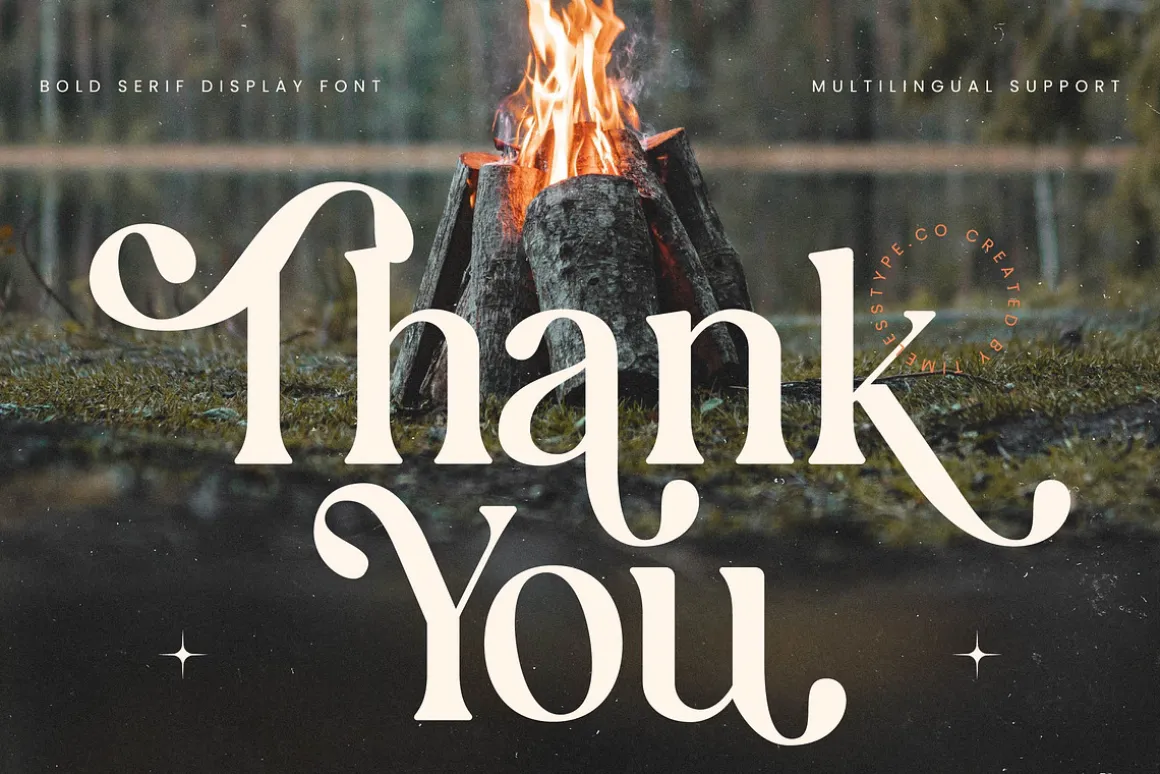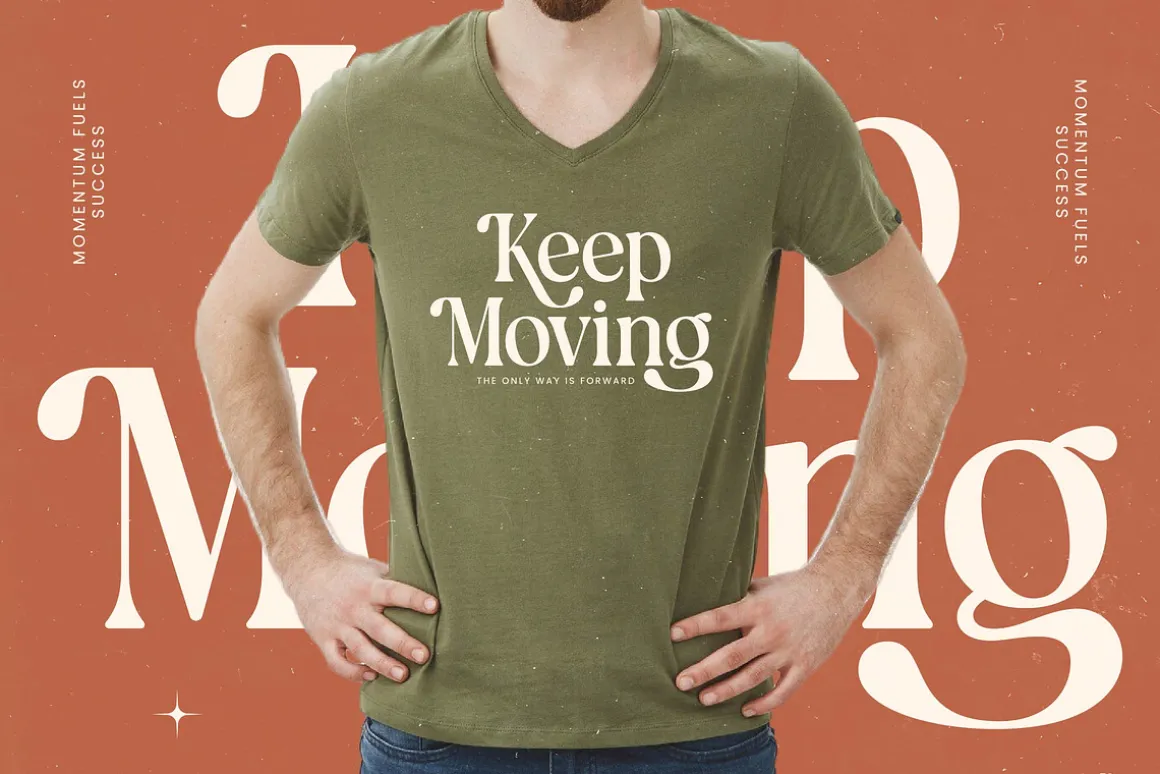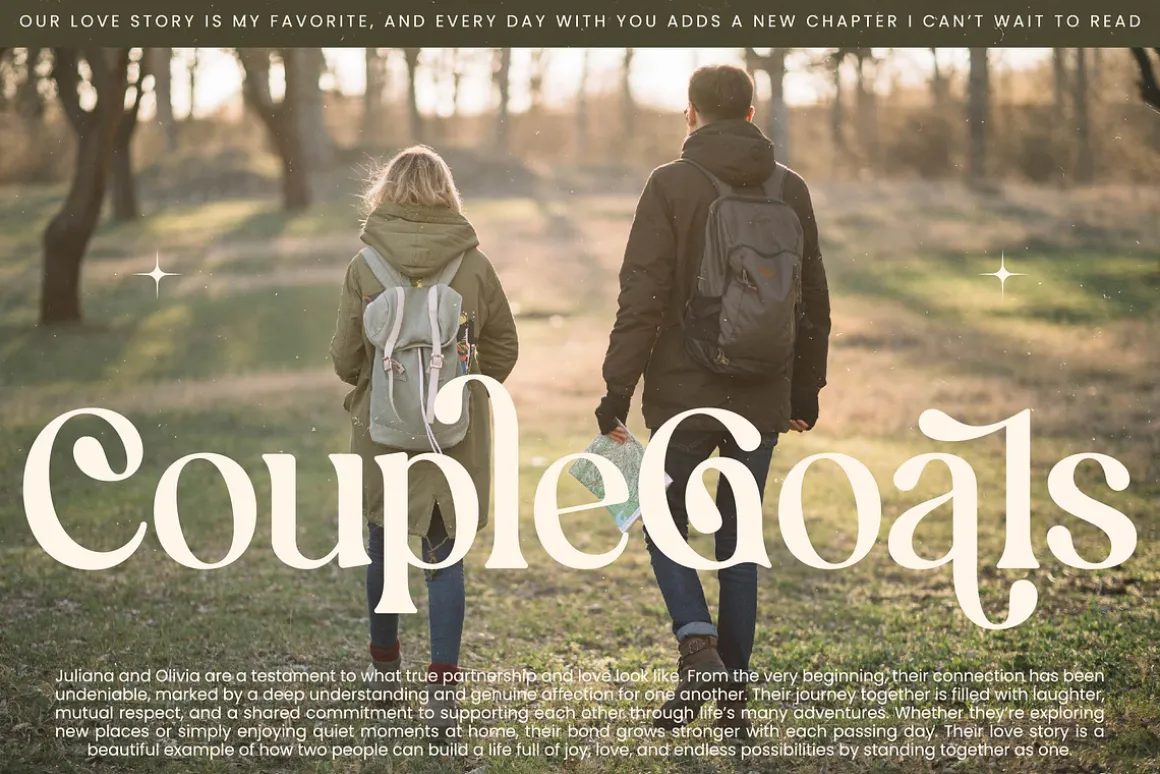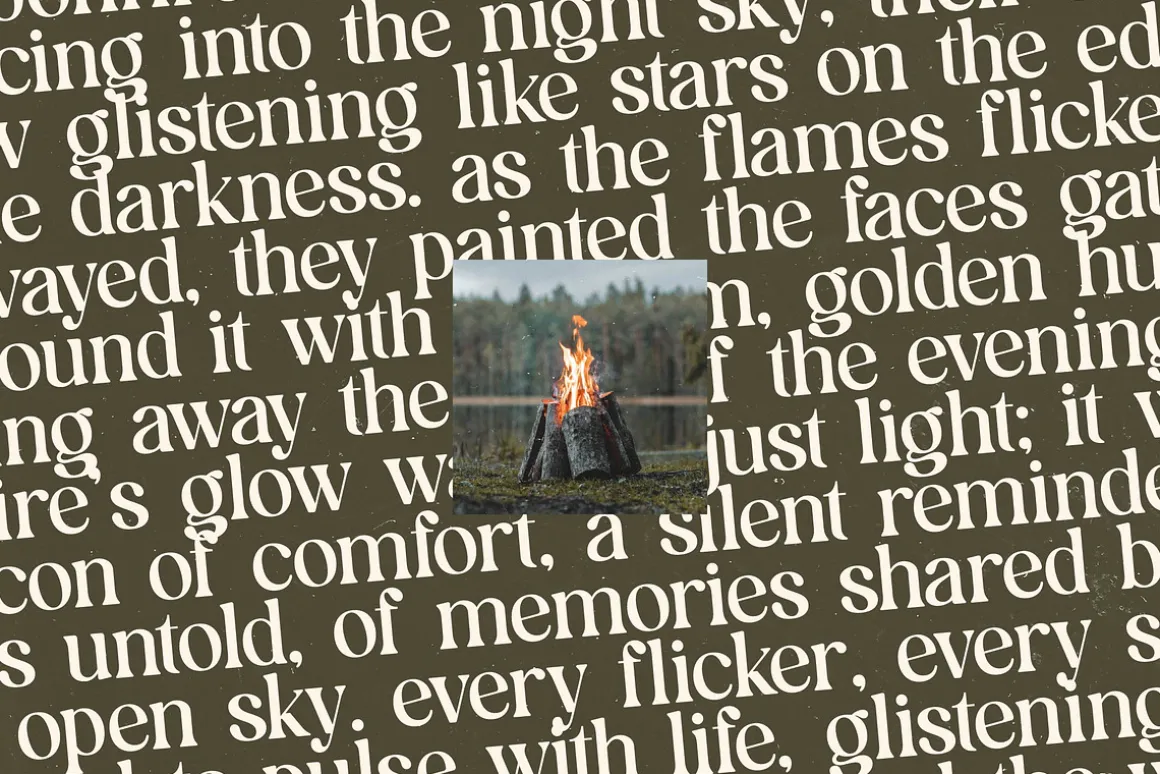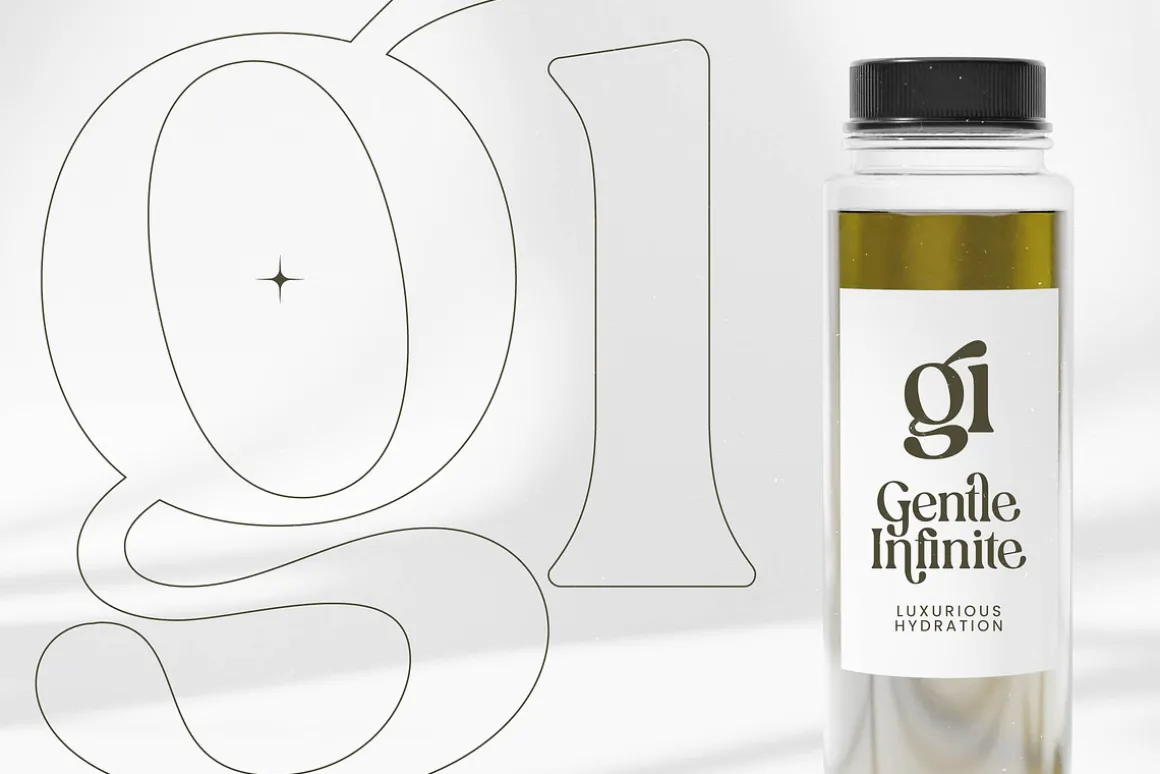
Bonfire Glisten is a captivating journey into the heart of sophisticated design, where every curve tells a story of warmth and elegance. It is more than just a typeface; it is a visual whisper that demands attention with its graceful presence and timeless charm.
Inspired by the flickering light of a lakeside fire and the rhythmic shadows of the forest, this font captures the essence of a serene, glowing evening. Its organic flow reflects the natural dance of flames while maintaining a polished, professional structure that feels grounded and refined.
This modern serif display exudes an air of effortless sophistication, making it the ultimate choice for luxury typography projects. With its high-contrast serif design, it delivers a powerful branding impact while functioning perfectly as a versatile editorial font for high-end layouts.
Perfectly aligned with the modern serif trend, this typeface bridges the gap between classic elegance and contemporary flair. Designers looking for editorial display fonts will appreciate its character-driven typography, which adds a unique, handcrafted soul to any digital or print project.
Whether you are working on logo design, high-end branding, or sophisticated editorial spreads, this font delivers exceptional results. It is equally at home in luxury packaging, romantic wedding stationery, or bold fashion campaigns that require a touch of class.
This professional typeface comes loaded with a rich set of 22 ligatures and 101 alternates to help you customize every word. It also includes decorative swashes and full multilingual support for international characters, ensuring your message reaches a global audience with style.
- Ligature 22 Alternate 101
- Uppercase and Lowercase
- Numerals
- Punctuations (OpenType Standard)
- Accents (Multilingual Characters)
- Ligatures and Alternative Style Stylistic Set